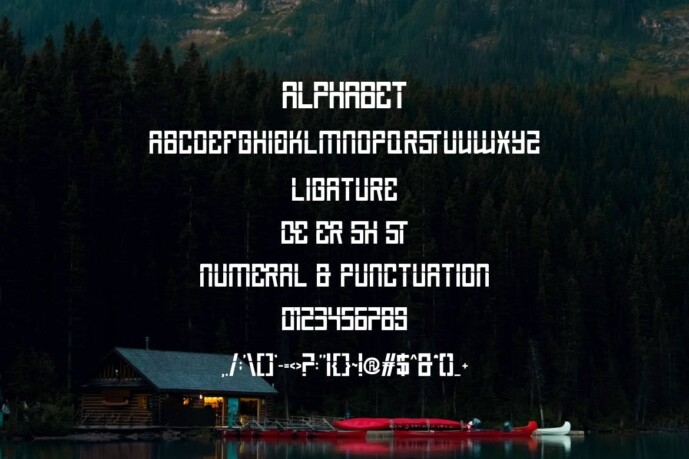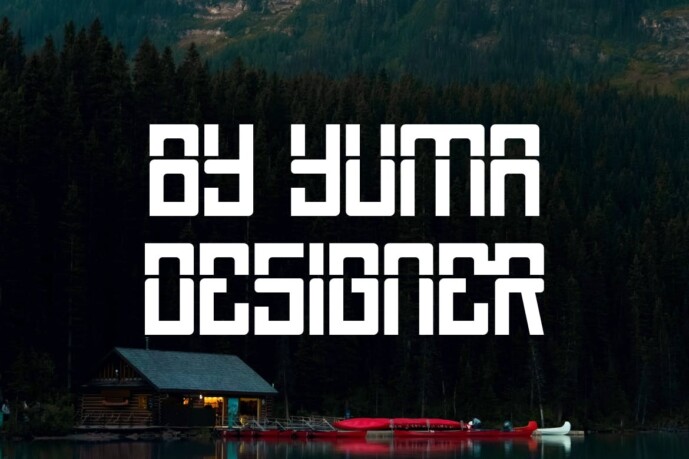
Baeroeh Font
Designer: yumadesign_
Baeroeh Font is a modern and simple font, ideal for displaying titles, logos, branding, magazines, product packaging and invitations. Baeroeh features clean lines and soft curves, to give any project a touch of class.